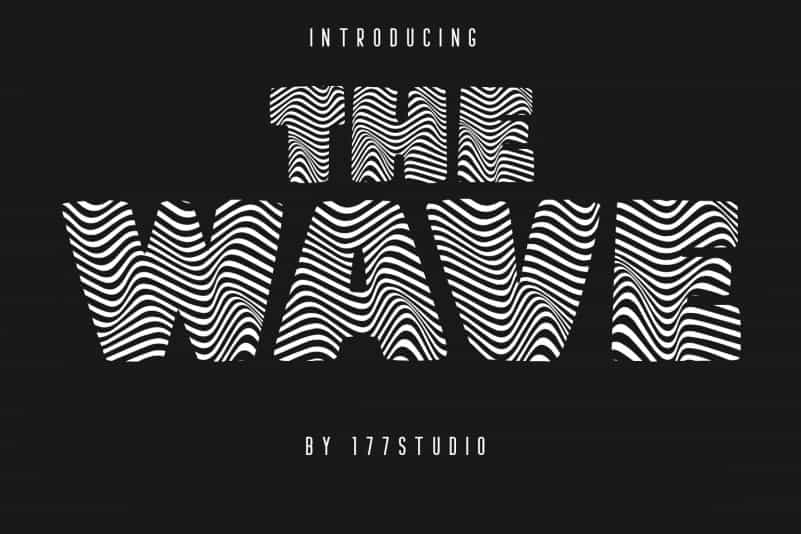
The Wave Display Font is an upper and lowercase decorative font, filled by a wavy zebra-striped pattern. It is inspired by the hand-written chalk lettering on blackboard menus in coffee shops.
The Wave – Display Font
• Designer :
• 177Studio